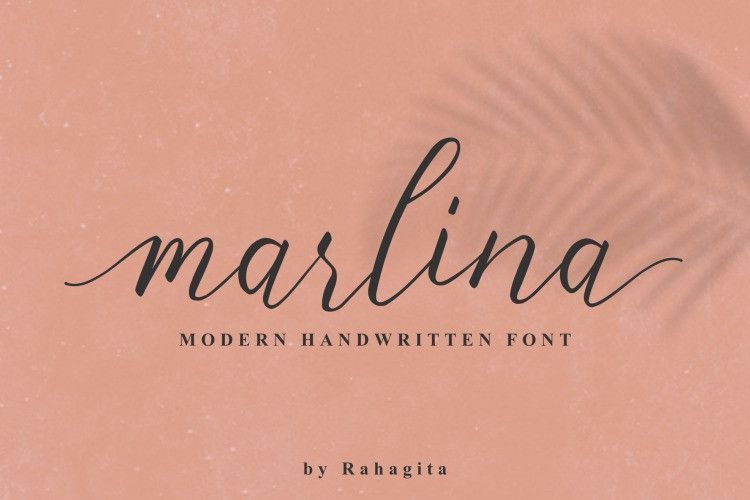
Marlina Font
Marlina Font is modern calligraphy design. This font is elegant and pretty with swashes.
Can used for various purposes. such as logo, product packaging, wedding invitations, branding, headlines, signage, labels, signature, book covers, posters, quotes and more.